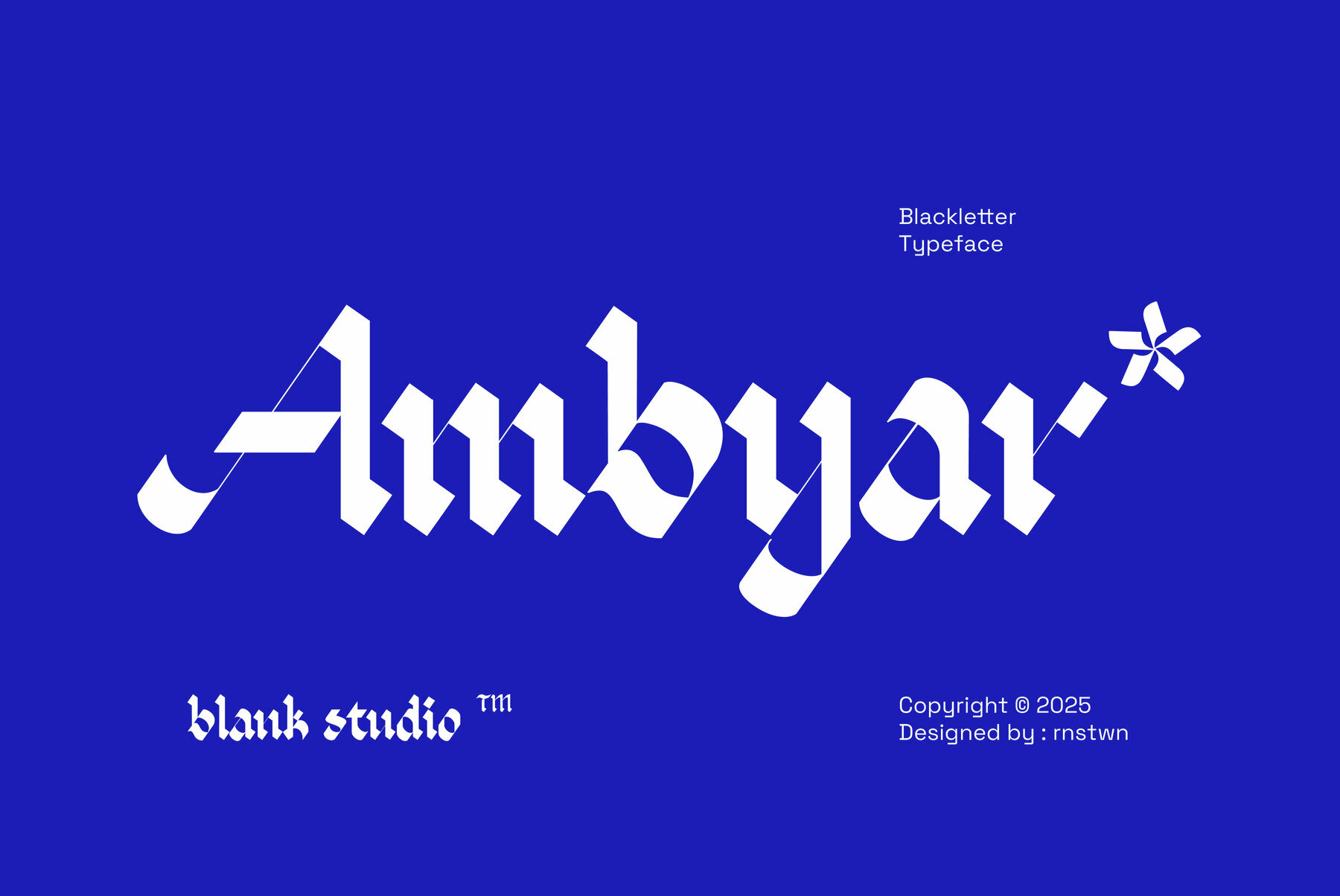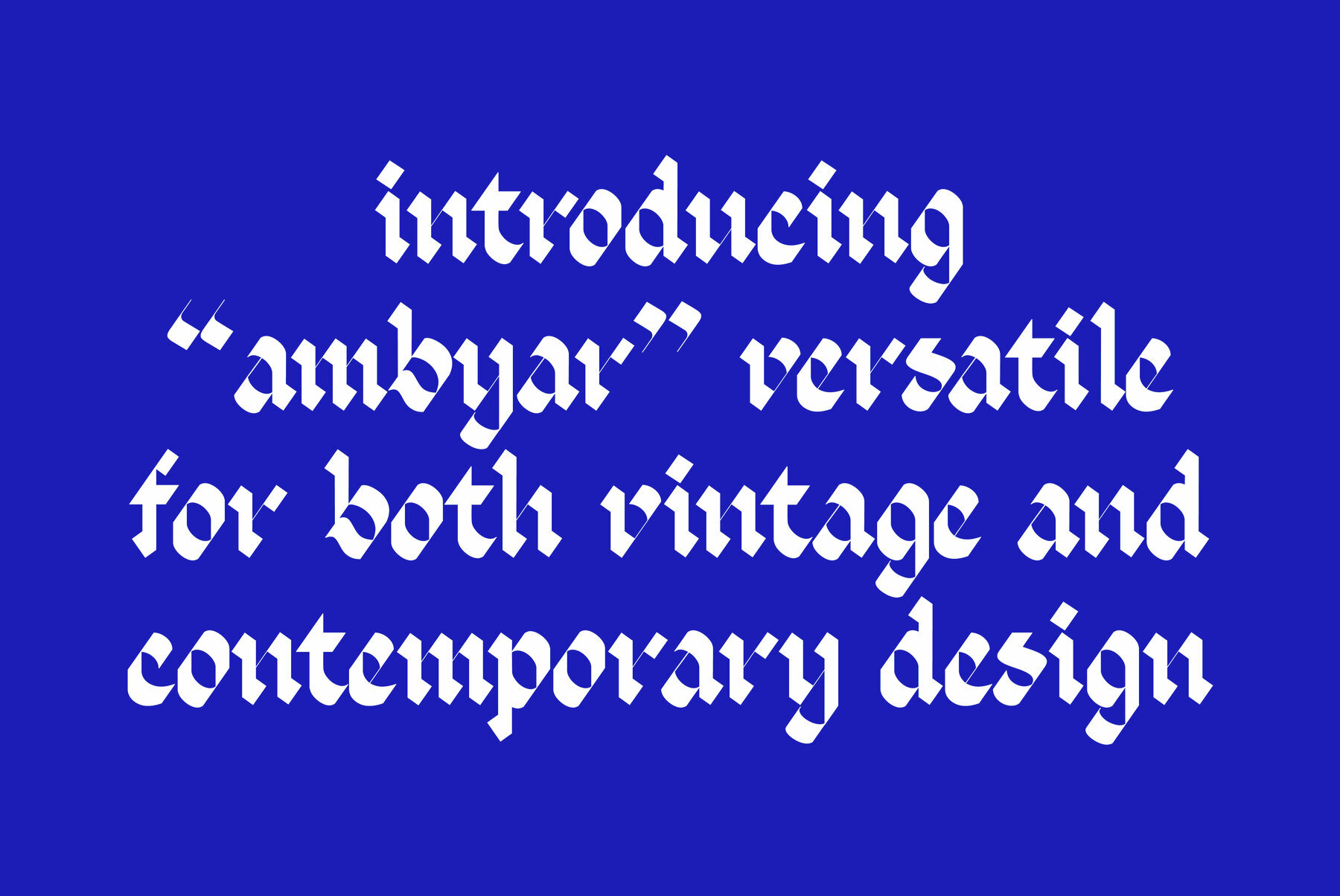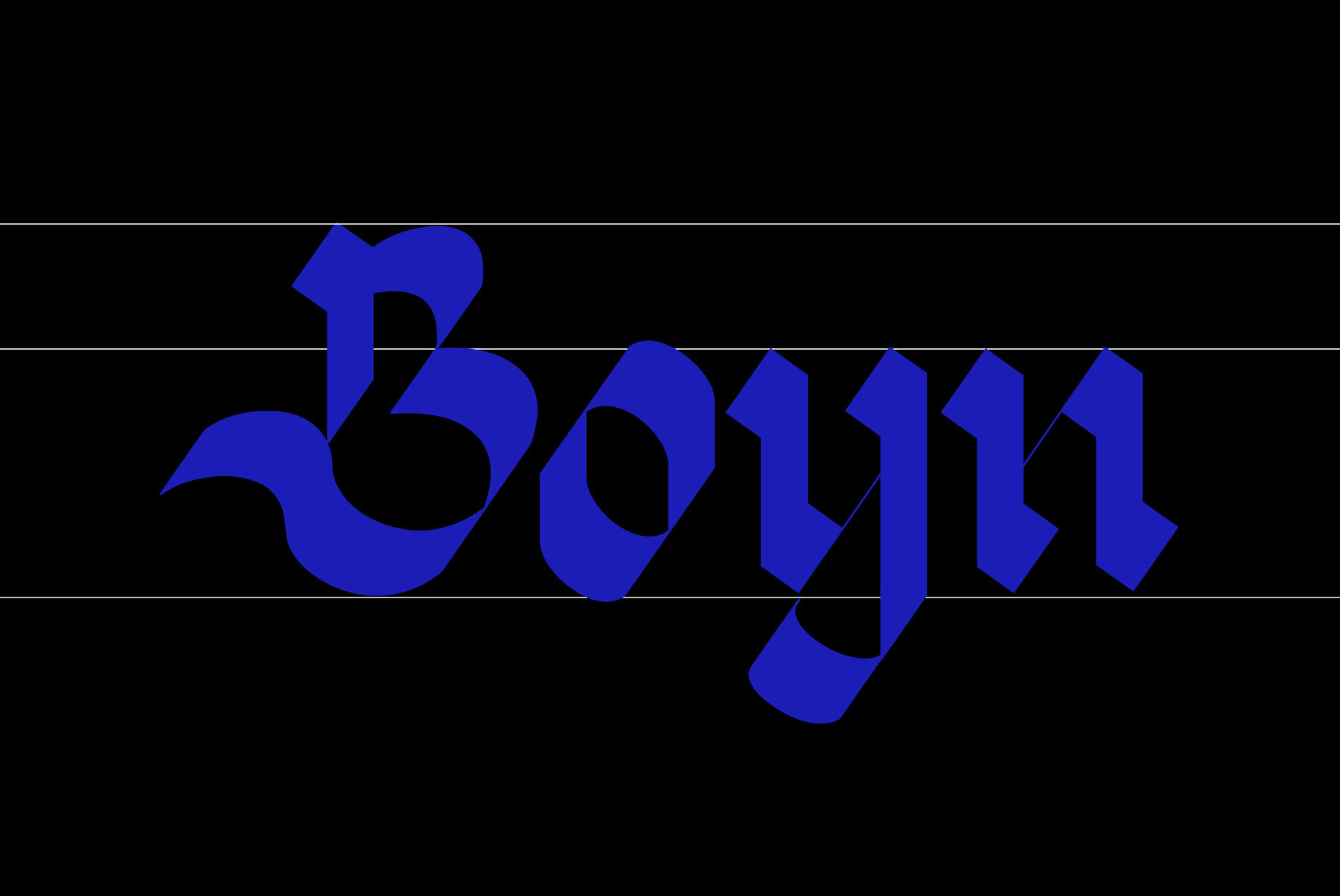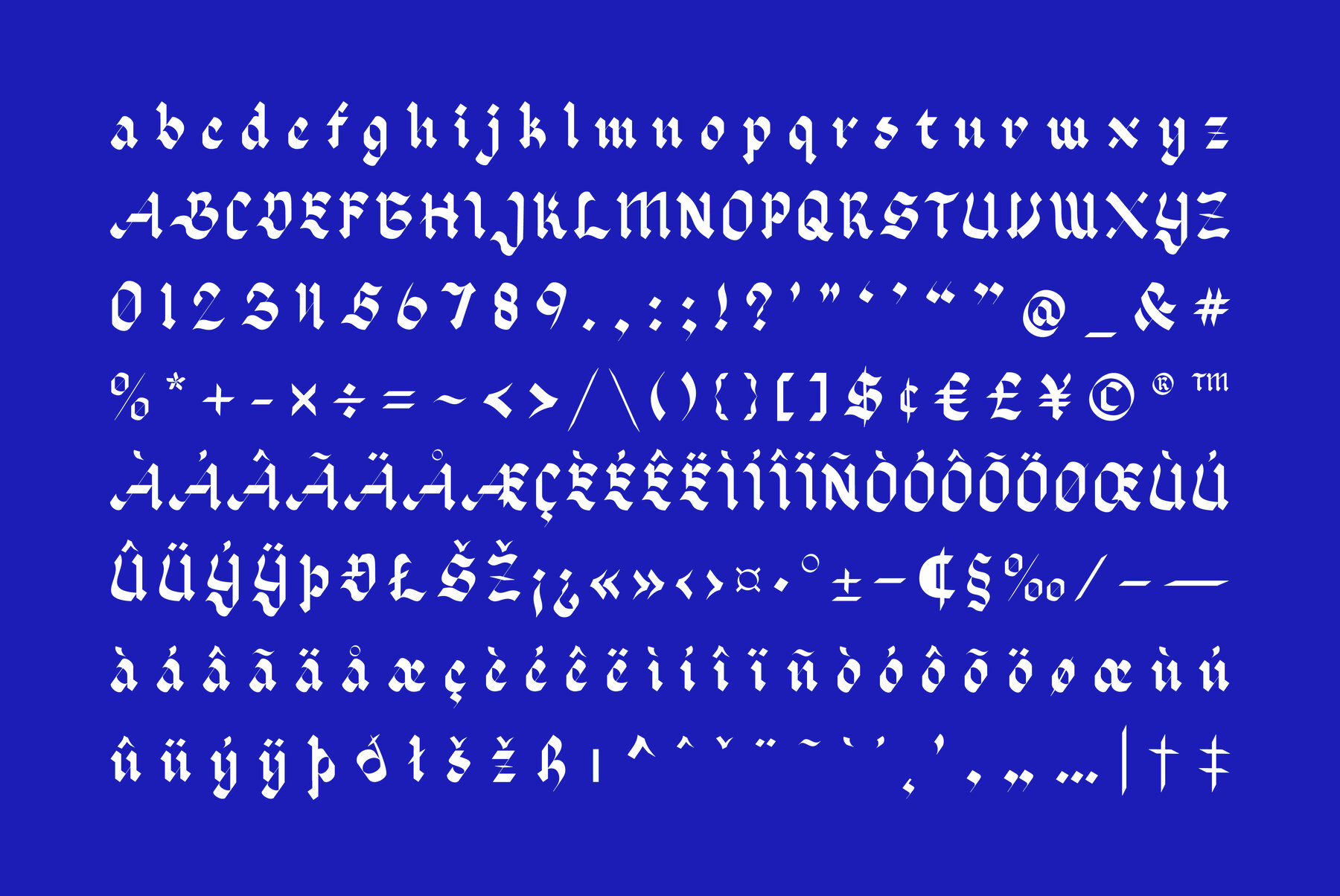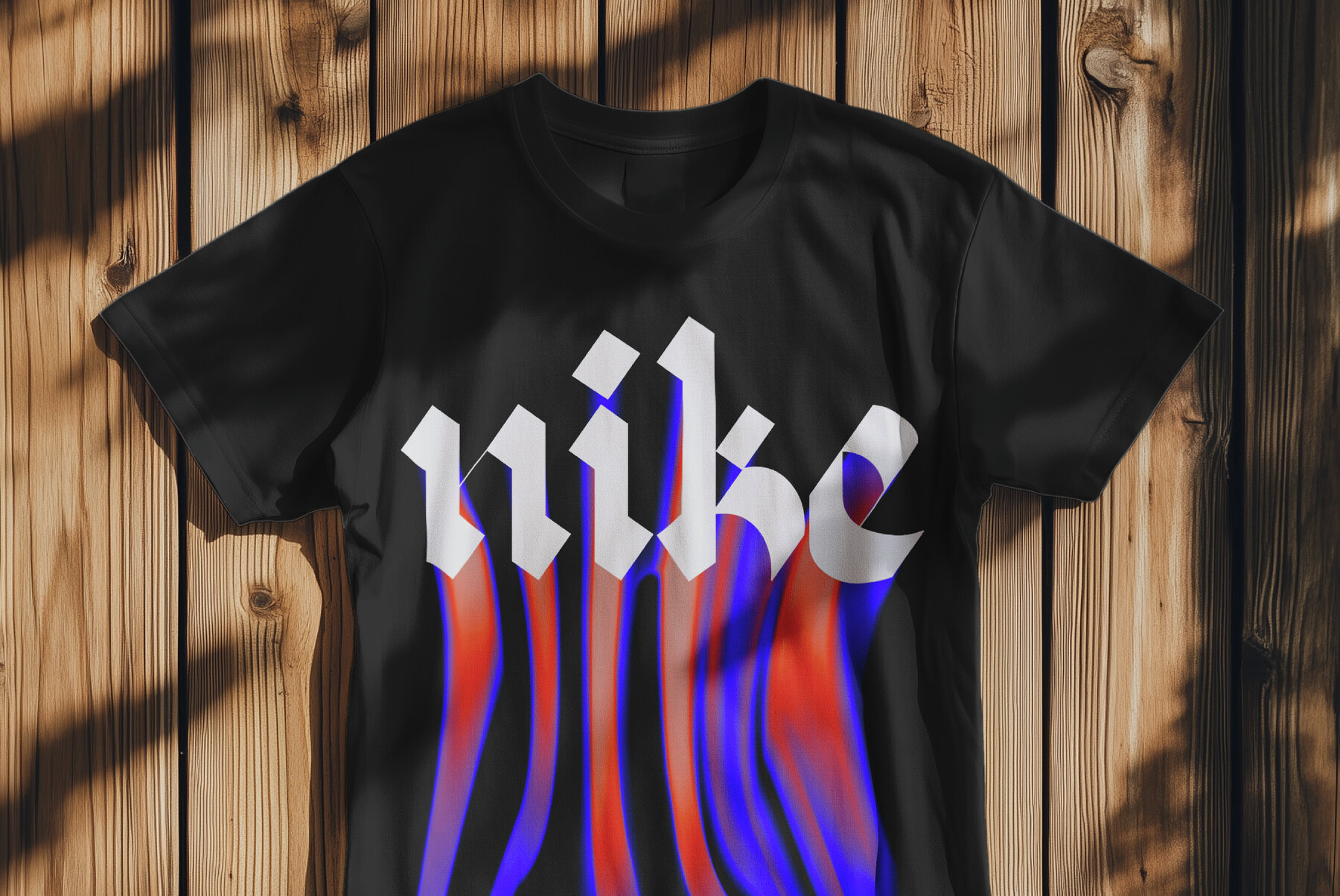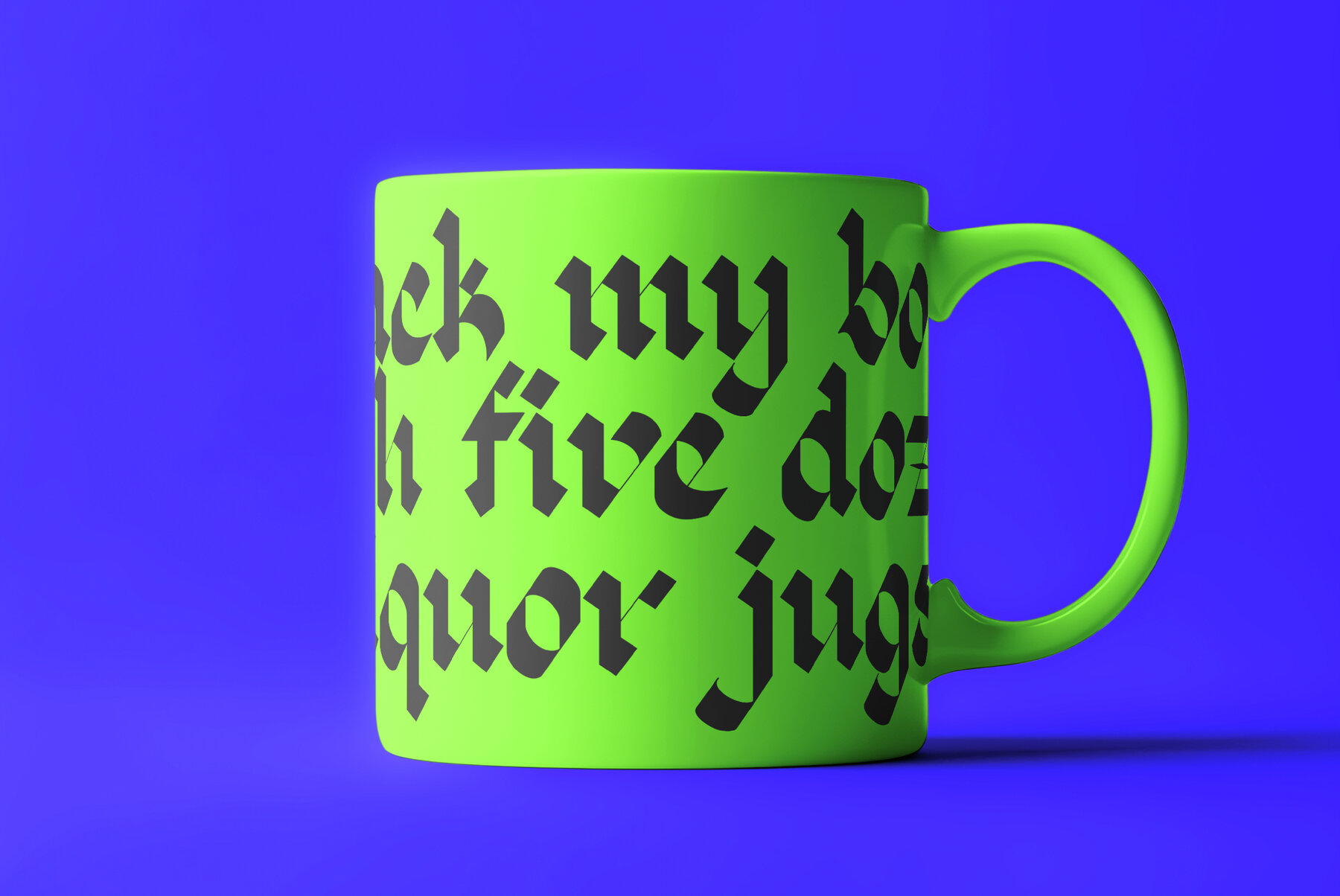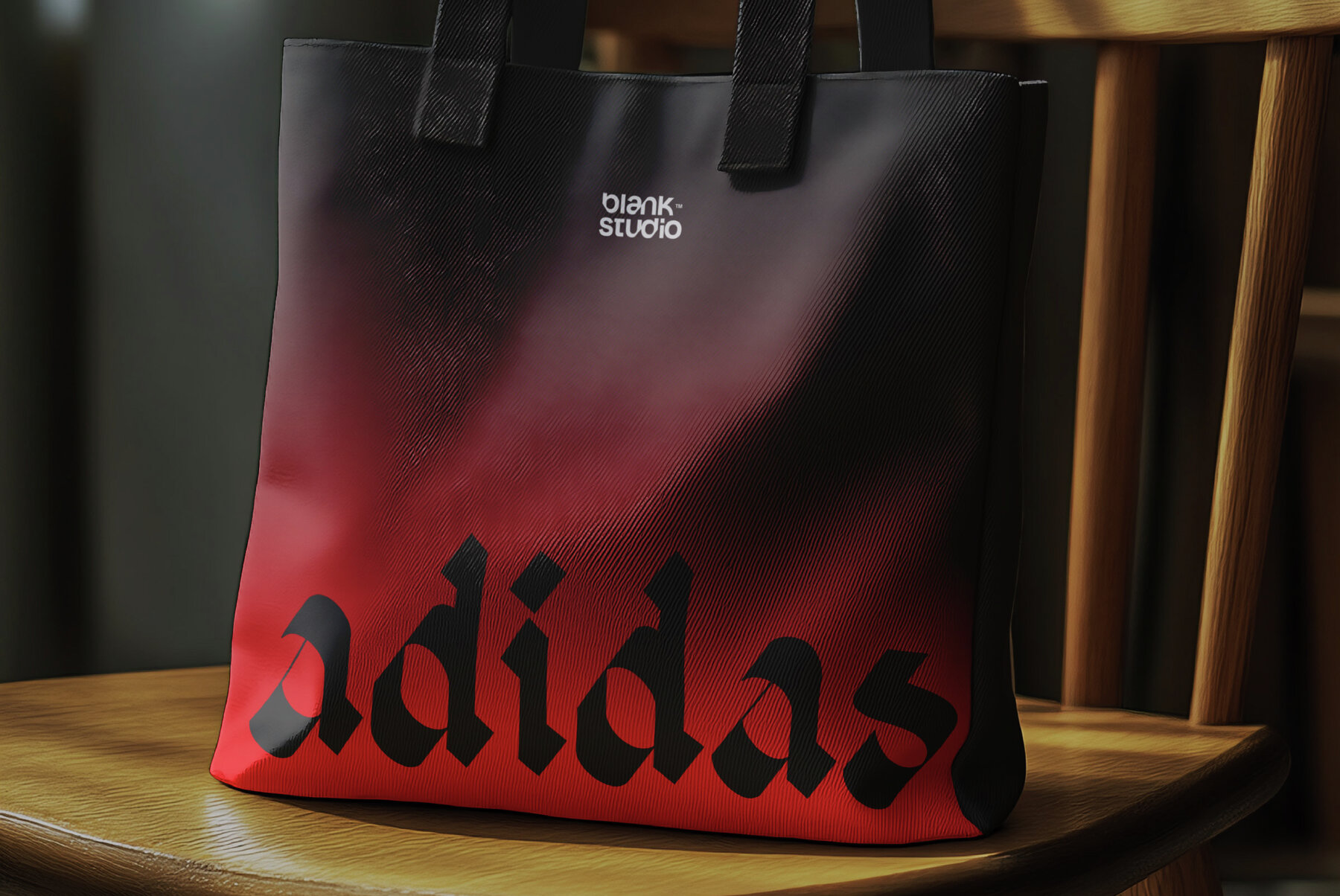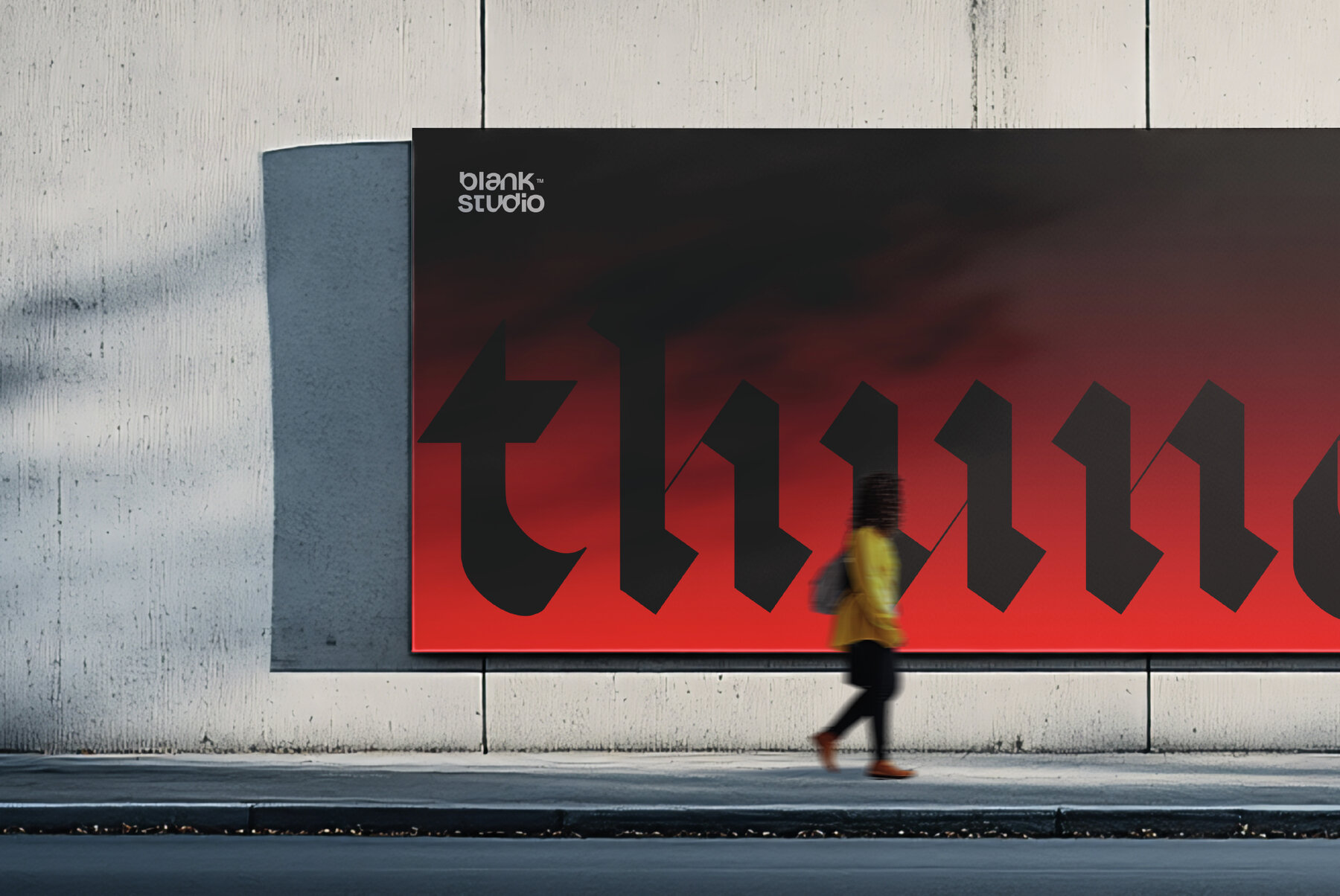
Ambyar Black is a bold and expressive blackletter typeface designed to evoke a sense of elegance, power, and nostalgia. Rooted in the traditional Gothic script, it reimagines the classic blackletter style with a modern twist, making it versatile for both vintage and contemporary design projects.
Ideal for vintage-inspired graphic design and contemporary branding projects. Perfect for impactful logos, striking headlines, and artistic posters, ensuring a dramatic flair and a strong visual presence in any creative composition.